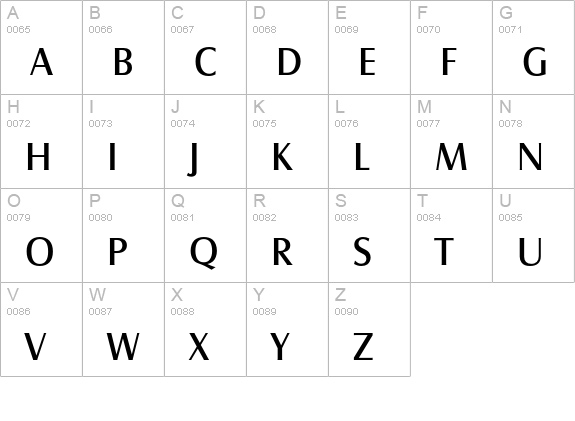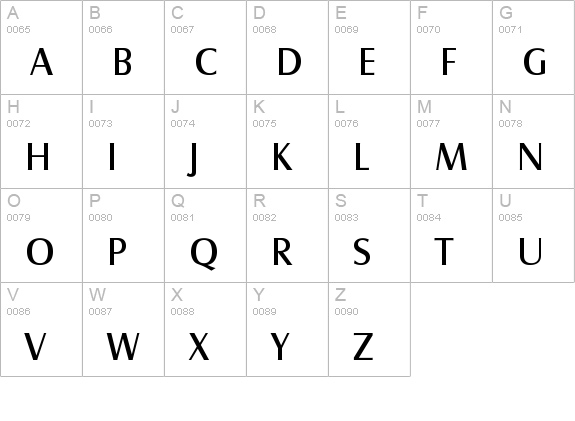
Castle T Book is a comfortable, highly readable variant in the Castle typeface family \xE2\x80\x94 well suited to long-form body text, articles, and editorial content.
Castle T Book font is a sophisticated and elegant typeface that exudes a sense of timeless charm and grace. With its classic serifs and clean lines, this font is perfect for adding a touch of elegance to any design project. Whether you are creating invitations, branding materials, or editorial layouts, Castle T Book font will elevate your work to new heights. What's even better is that Castle T Book font is available for free download at FontsMarket.com. This means you can easily access this stunning typeface and use it in your projects without any cost. Don't miss out on the opportunity to enhance your designs with the timeless beauty of Castle T Book font. Download it now and see the difference it can make in your work.